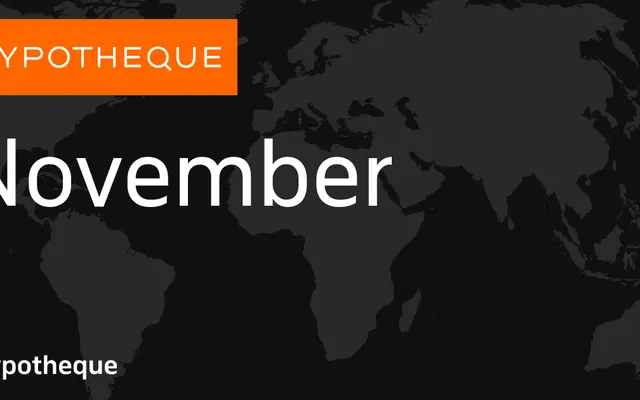
November
A large grotesque system from Typotheque spanning nine weights across upright, condensed and compressed widths, with a variable font option.
November covers nine weights from Hairline to Black, each with matching italics, across three width variants: standard, Condensed and Compressed. The system totals 54 static styles alongside a variable font, giving considerable range for typographic hierarchies in editorial, branding and identity work. The weight extremes and width compression make it particularly suited to display and headline setting.
November is a contemporary grotesque sans-serif with a large weight range and extended width variants, following the conventions of European grotesque typeface families.